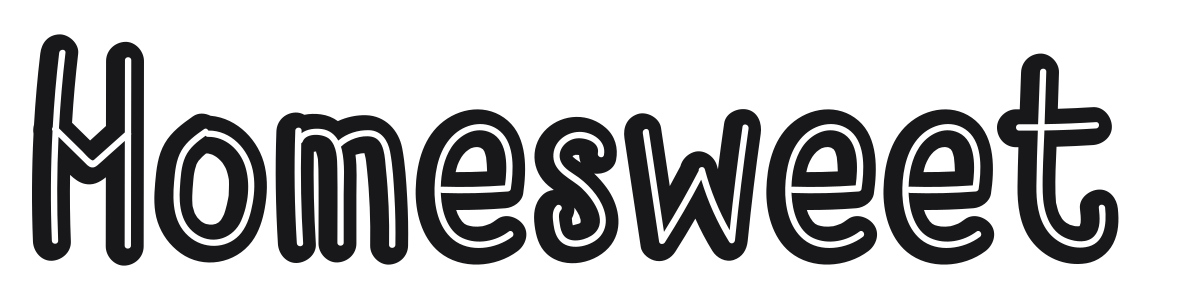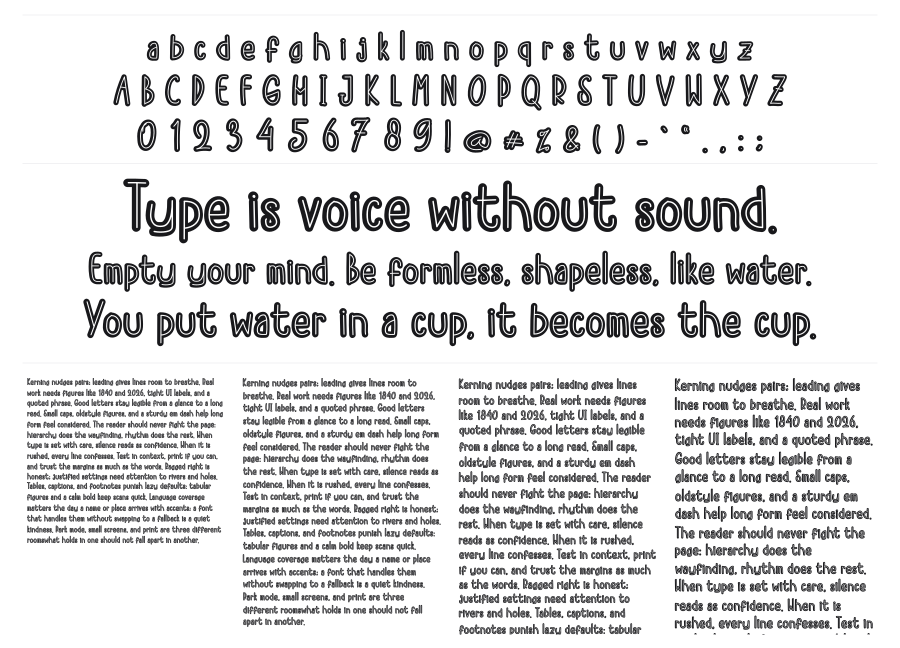
Homesweet
Homesweet is a bold rounded outline font with a warm, bubbly character built from thick strokes and a white inline contour. The double-outline treatment gives every letter an inflated, almost sticker-like presence that reads as instantly approachable. It suits children's branding, food packaging, and any project that needs cheerful energy at large sizes.